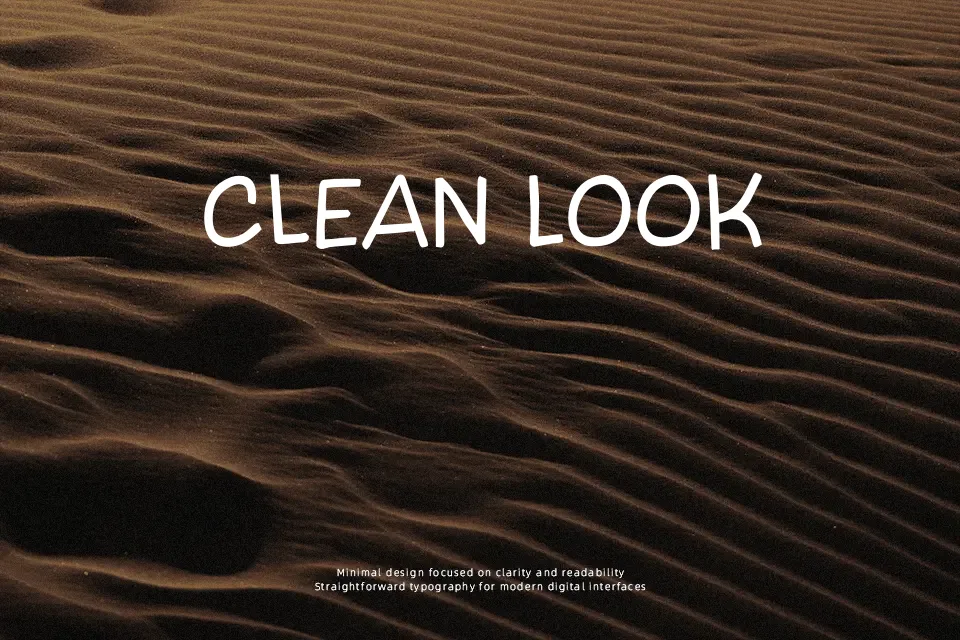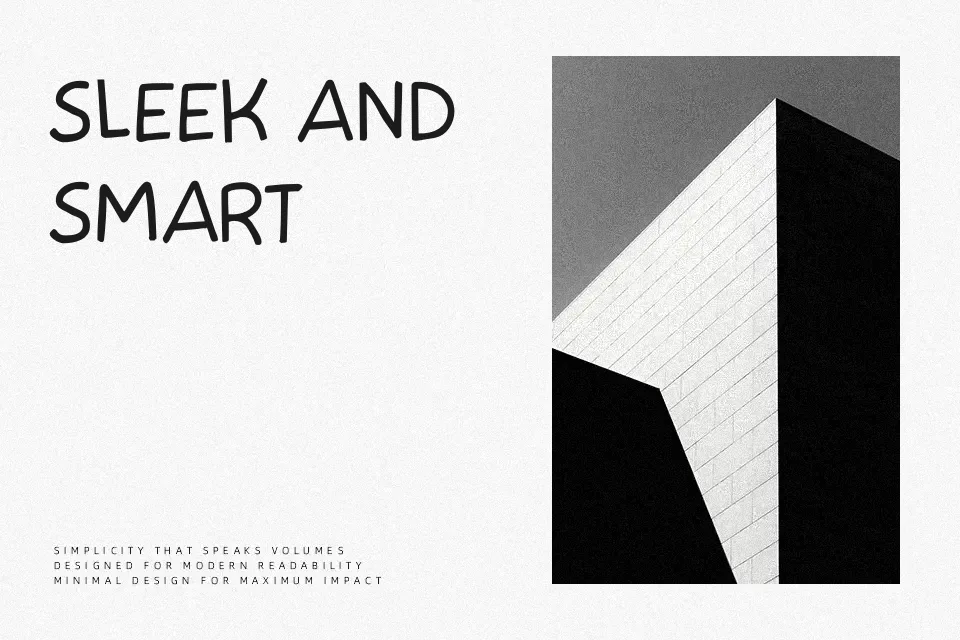
Takeshi Lite Font
Designed by Hanoded
The Takeshi Lite Font presents an informal handwritten sans serif design characterized by narrow to moderate proportions and consistent monoline stroke weight. Gentle imperfections along the contour joins and softly rounded terminals give the letterforms a breezy, approachable demeanor. Spacing is comfortably balanced, allowing uppercase and lowercase pairings to sit naturally across short display settings. While the design excels in food truck signage, lifestyle editorial titles, and informal product packaging, the lightweight strokes and irregular hand-drawn rhythm reduce reading comfort in long paragraphs and lose crisp definition within dense UI layouts.
Best For: coffee packaging labels, greeting card headlines, lifestyle editorial headers, children’s book titles
Not Ideal For: dense editorial layouts, legal contracts, small mobile interfaces, corporate financial reports
Perfect for branding, headline, and packaging, with a creative and display style.